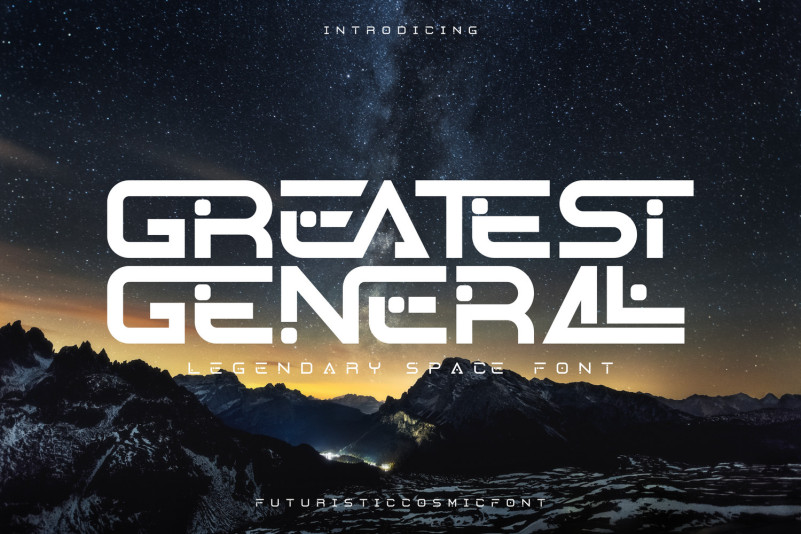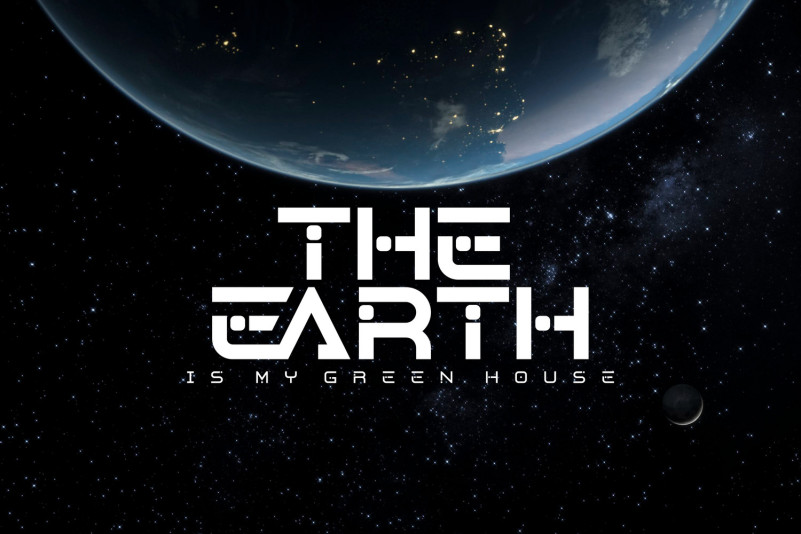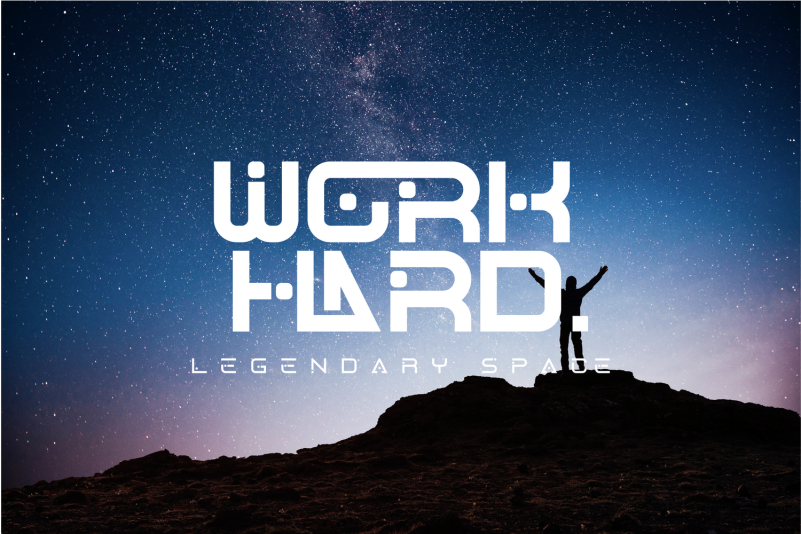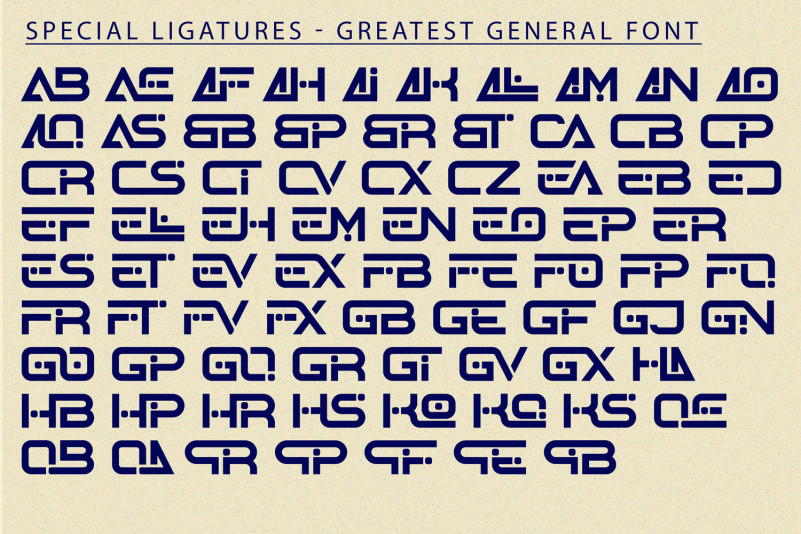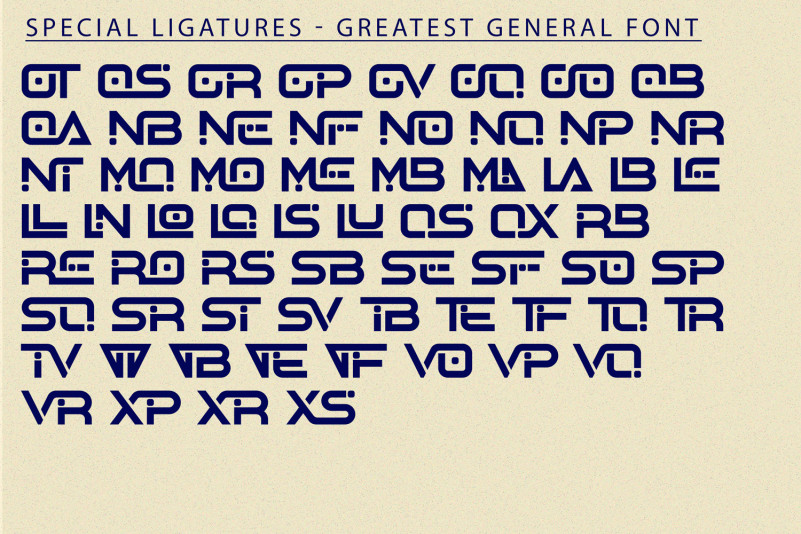
Greatest General – Futuristic Font is an elegant and futuristic display font, a font inspired by the visual of technology that we can find from logo, sci-fi movies, games, and the present gadgets. This font creates futuristic hi-tech atmosphere and style. It is good looking as header and as text both. Use it in your projects in such areas as robots & androids, hi-tech, future, virtual reality, space, sport and many others.
To make it look more unique, here we prepared some ligatures:
AB AE AF AH AI AK AL AM AN AO AQ AS BB BP BR BT CA CB CP CR CS CT CV CX CZ EA EB ED EF EL EH EM EN EO EP ER ES ET EV EX FB FE FO FP FQ FR FT FV FX GB GE GF GJ GN GO GP GQ GR GT GV GX HA HB HP HR HS KO KQ KS QE QB QA PR PP PF PE PB OT OS OR OP OV OQ OO OB OA NB NE NF NO NQ NP NR NT MQ MO ME MB MA LA LB LE LL LN LO LQ LS LU QS QX RB RE RO RS SB SE SF SO SP SQ SR ST SV TB TE TF TQ TR TV VV VB VE VF VO VP VQ VR XP XR XS